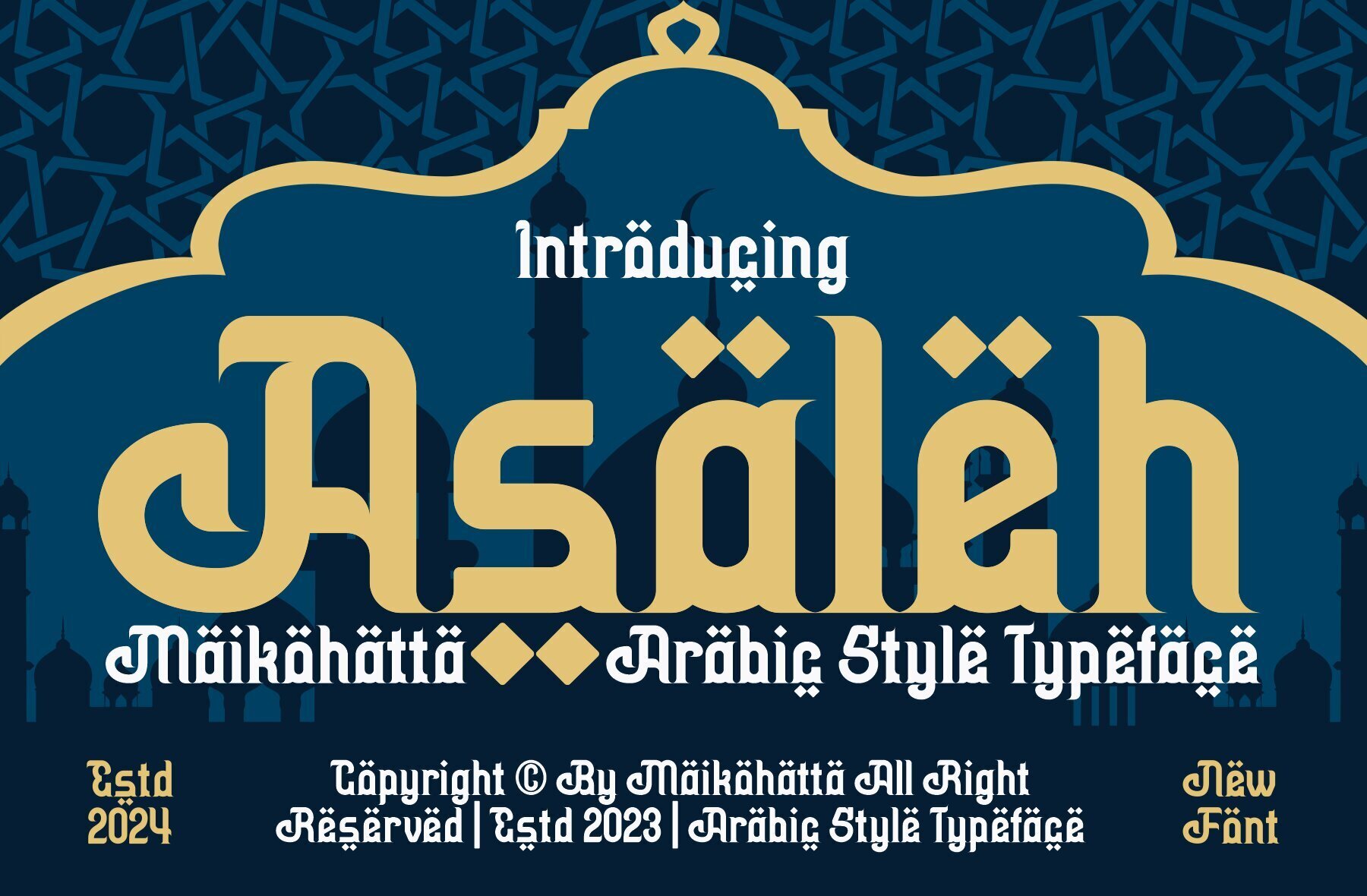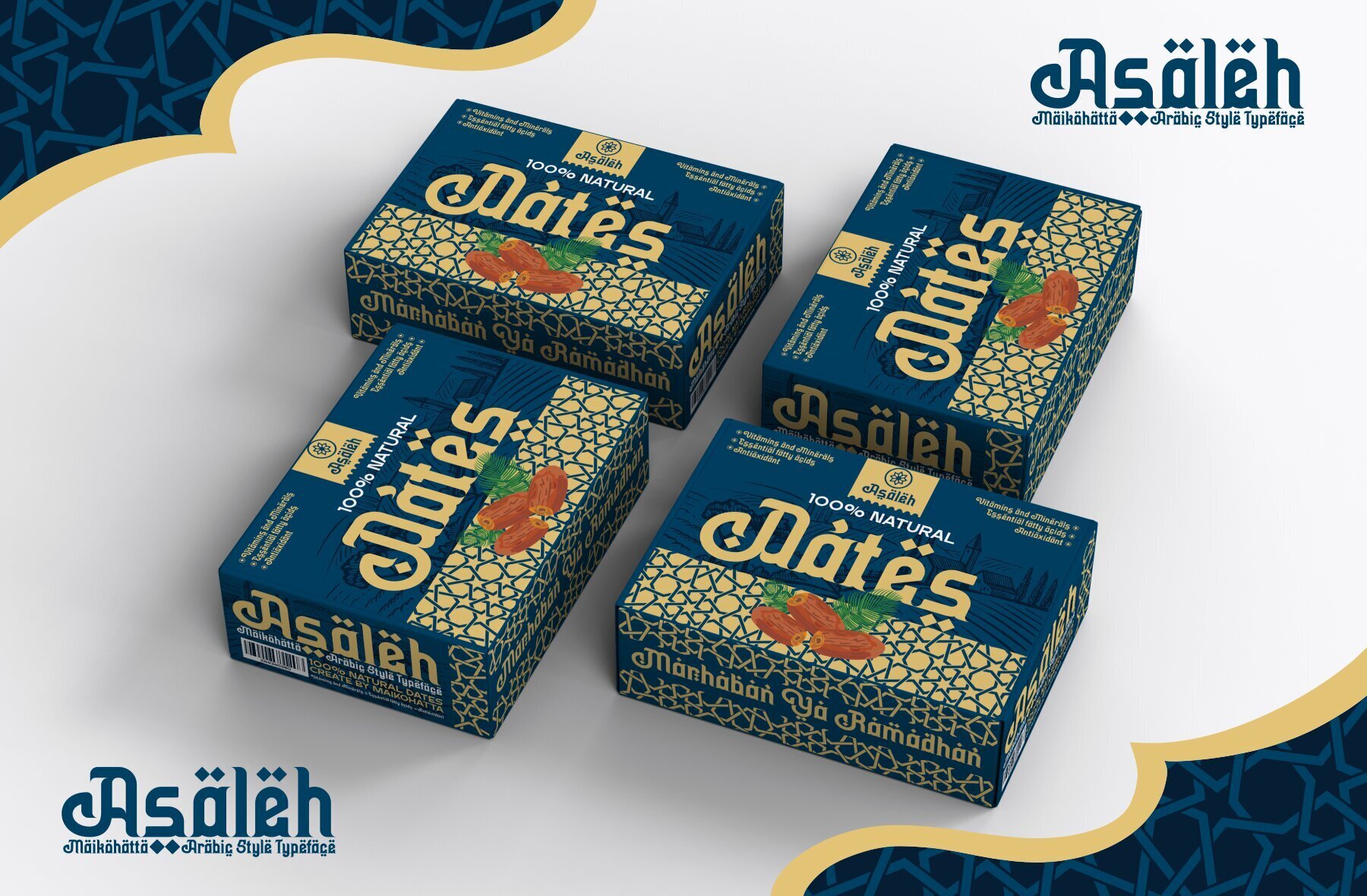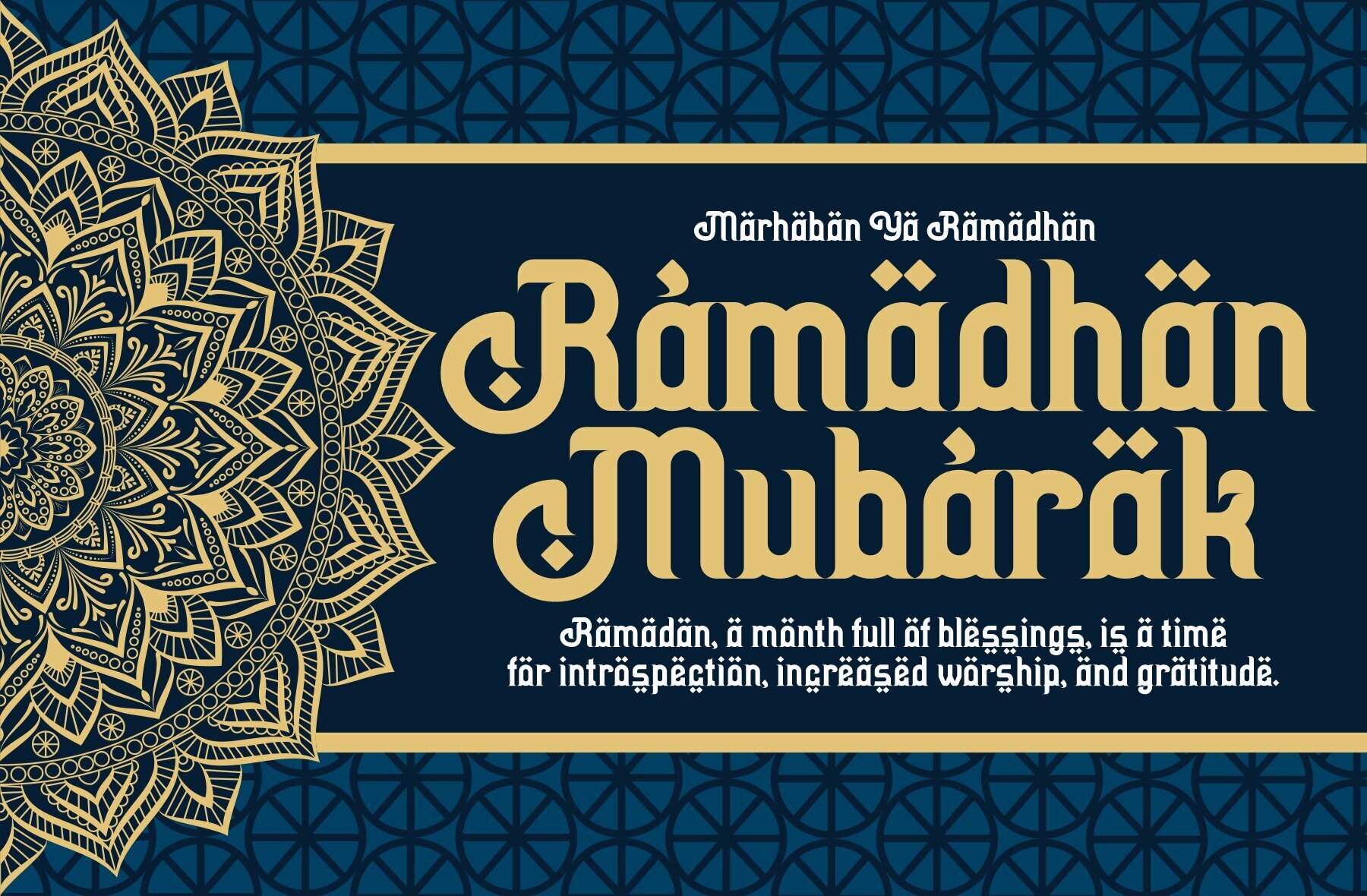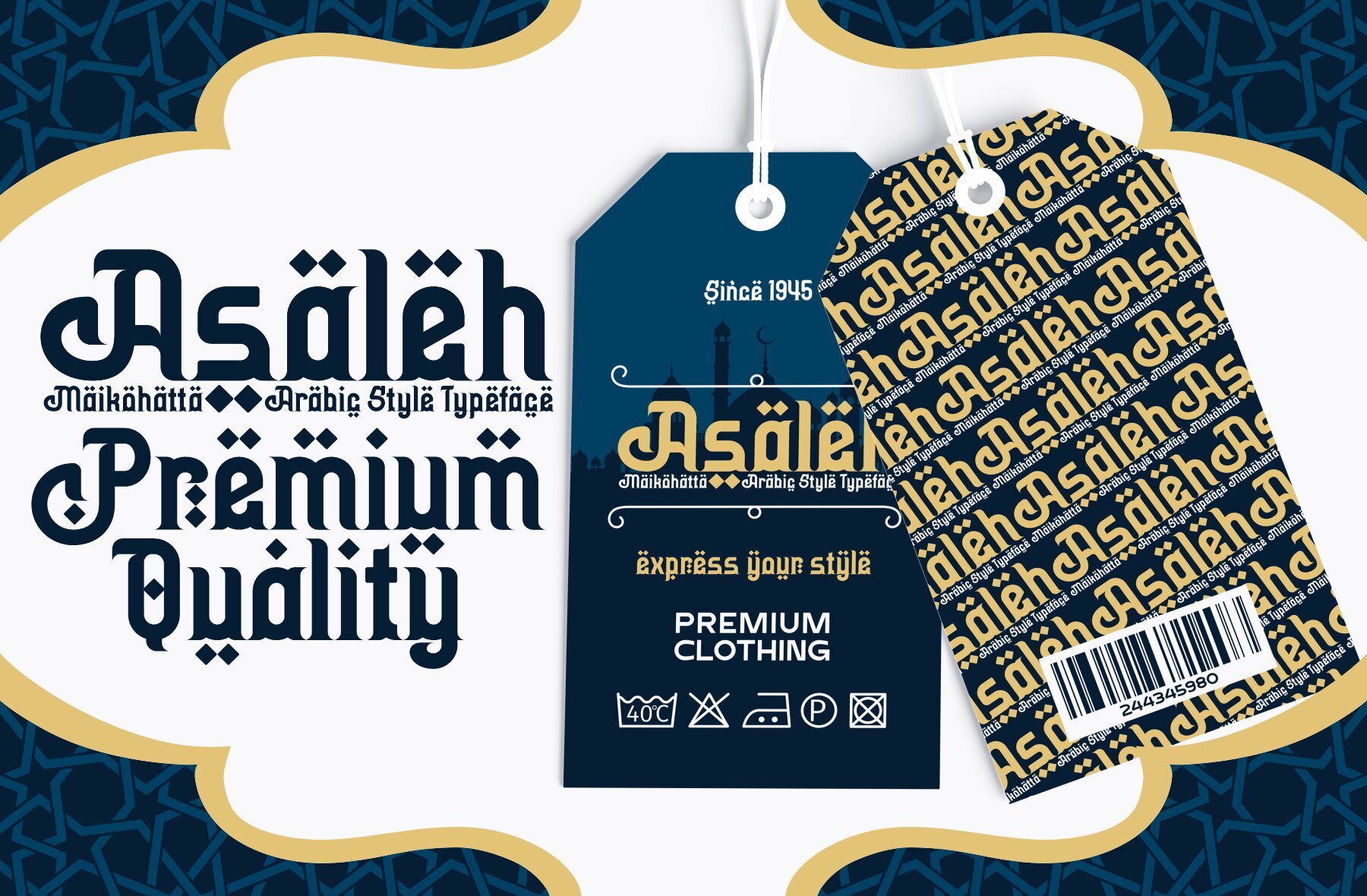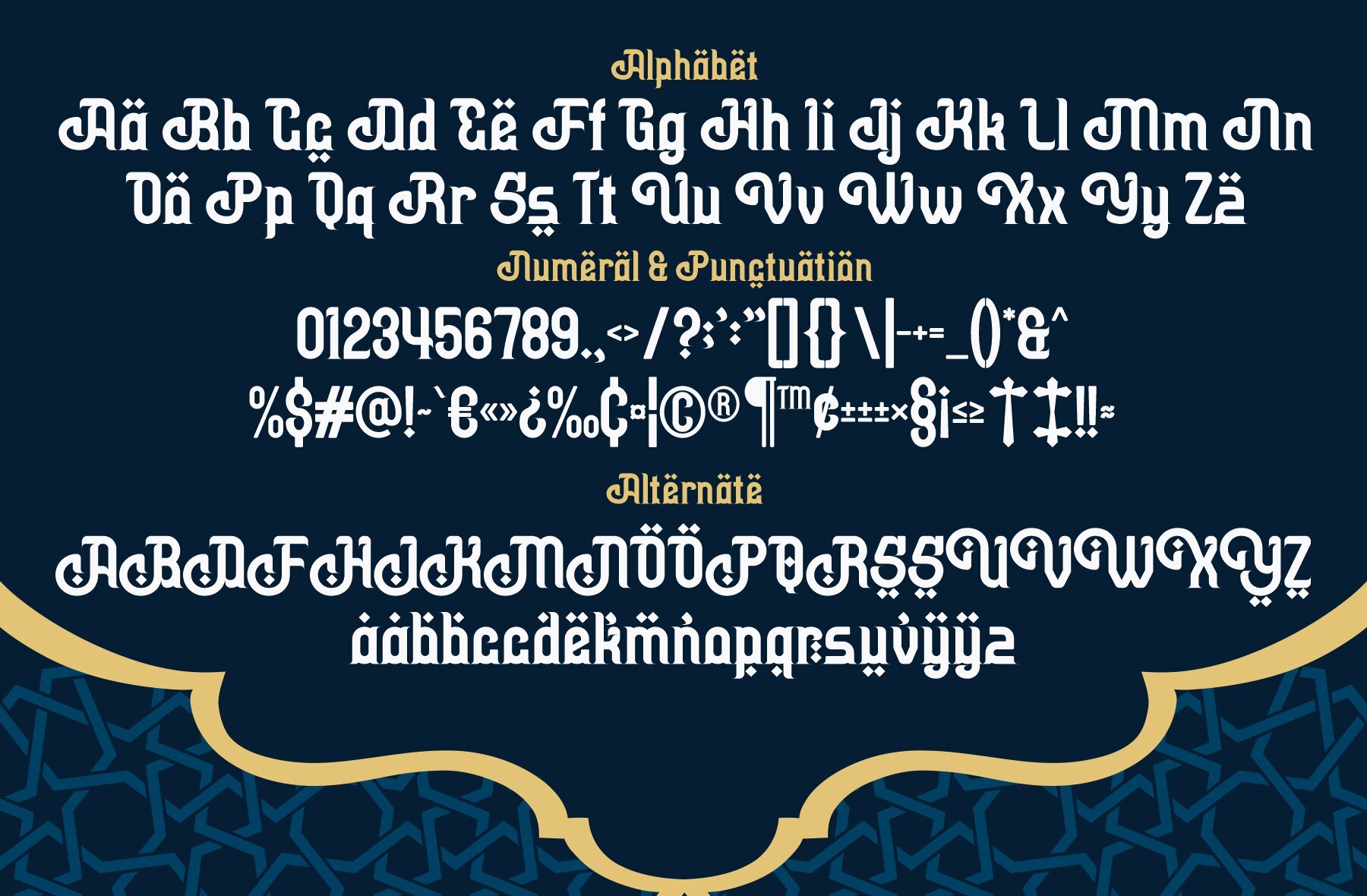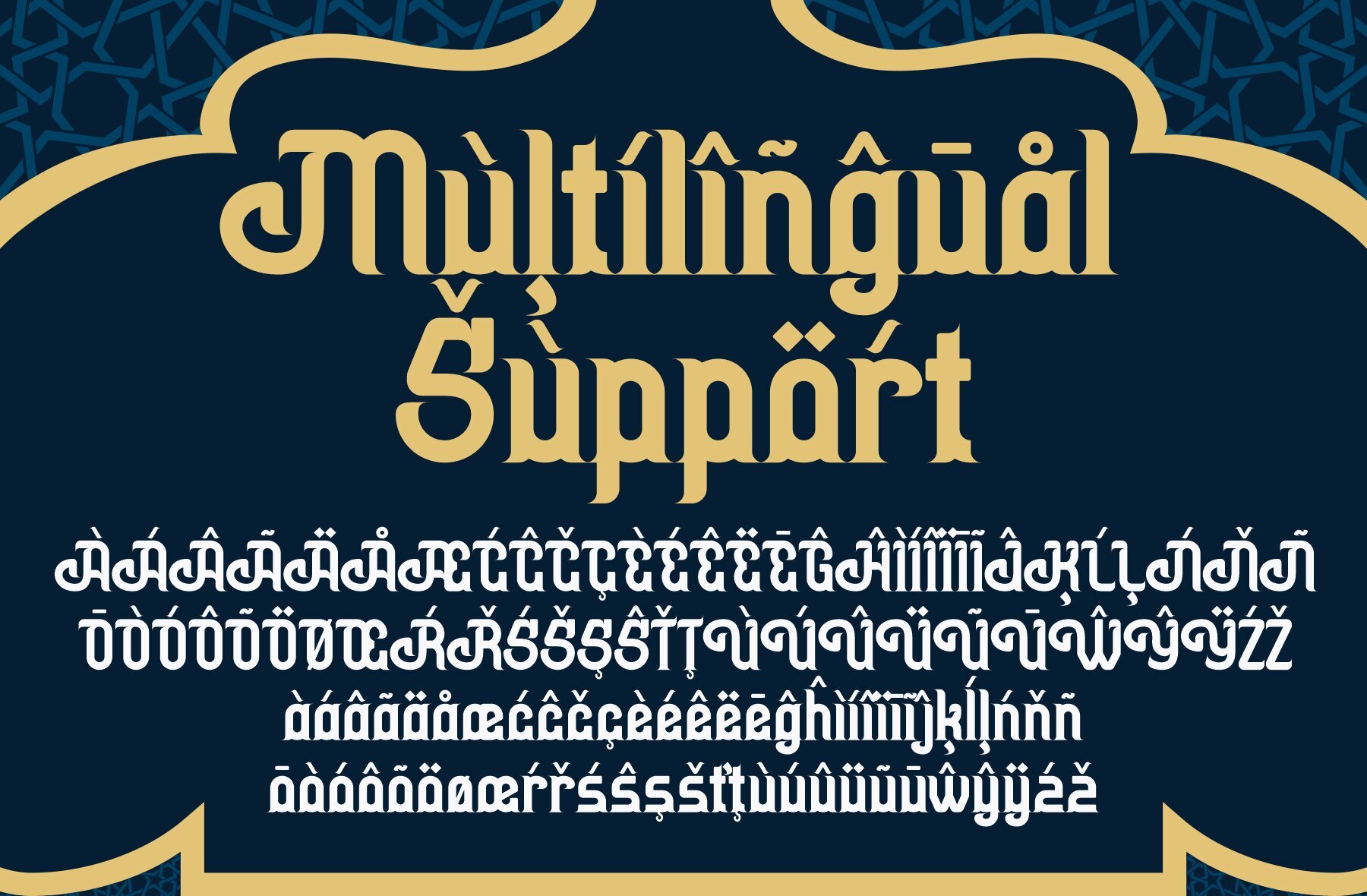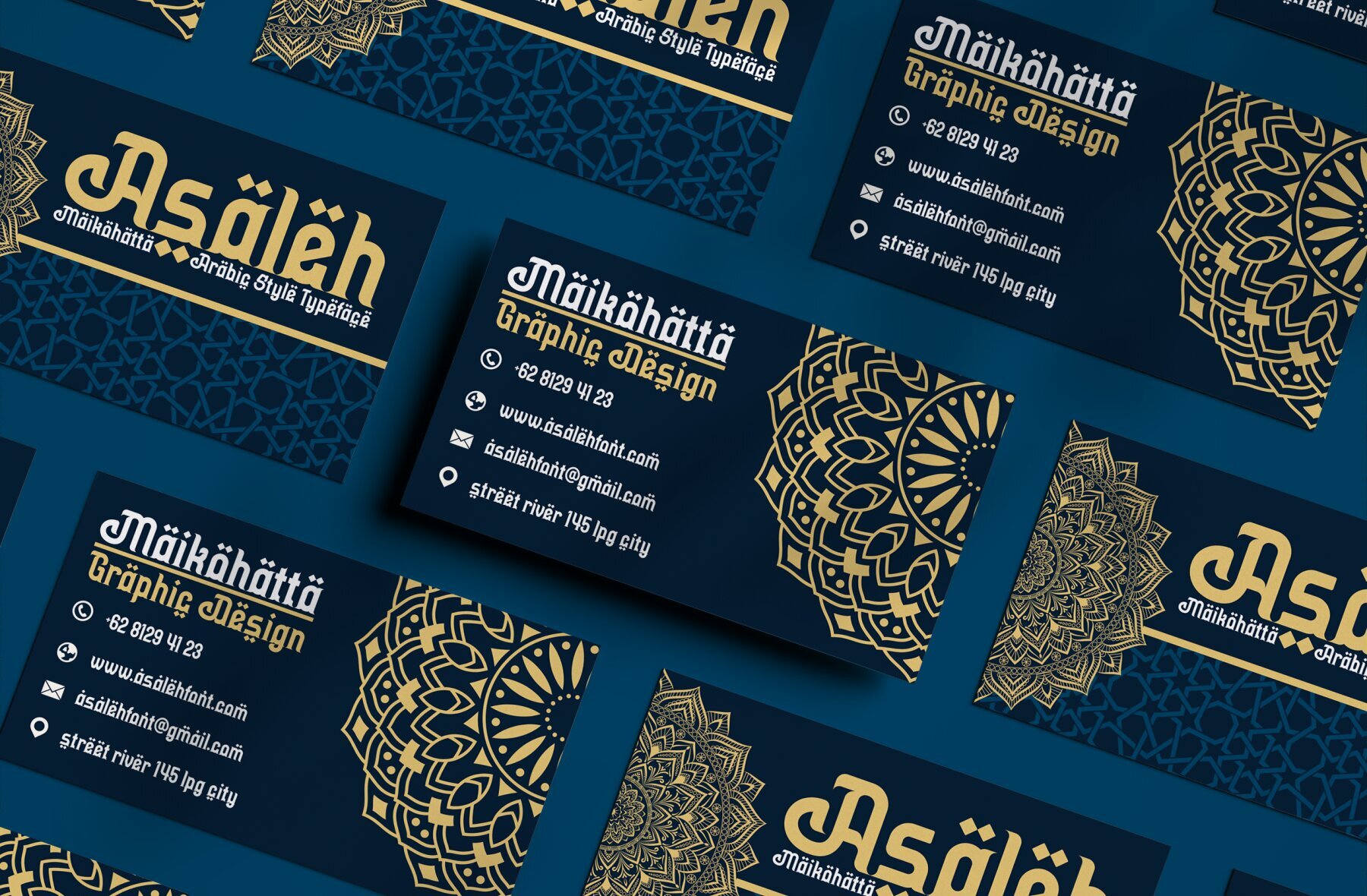
Asaleh Font
Asaleh Regular
Asaleh is a bold and authentic display typeface inspired by traditional Arabic design elements. This versatile font is ideal for various branding projects, including logos, templates, and esports graphics, providing outstanding visual impact in numerous contexts.Asaleh: Authentic Arabic Style Typeface